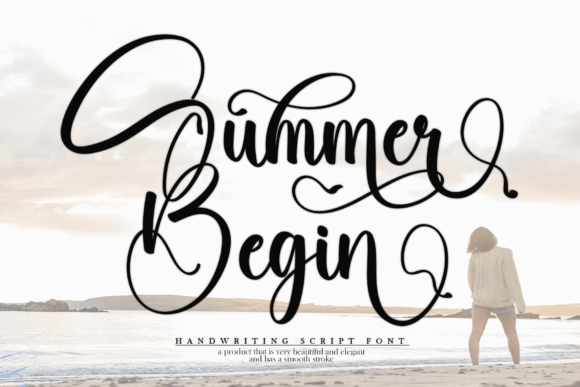
Dive into the world of exquisite penmanship with Summer Begin, a script font exuding elegance and charm. Its enchanting strokes, reminiscent of a calligrapher's artistry, will transform your creative projects into masterpieces.
Picture the allure of wedding invitations adorned with Summer Begin's graceful curves, leaving a lasting impression on your guests. Its presence on thank-you cards adds a touch of heartfelt gratitude, while quotes and greeting cards take on a poetic charm.
Envision logos and business cards infused with Summer Begin's sophistication, exuding professionalism and creativity. Its versatility extends to any design seeking a handwritten touch, adding a personal and inviting element.
Summer Begin's PUA encoding grants you effortless access to a treasure trove of glyphs and alternates, unlocking endless possibilities for customization. Explore the depths of creativity, crafting designs that resonate with your unique style and vision.
Join the ranks of discerning designers and creatives who have embraced Summer Begin's magic, transforming their projects into works of art. Let Summer Begin's allure captivate your audience, leaving them spellbound by the beauty of your creations.